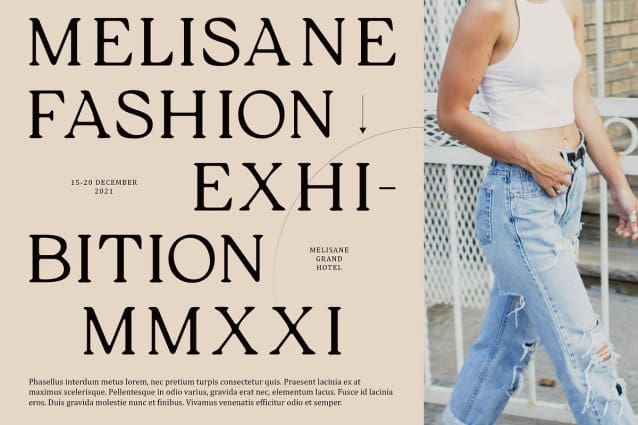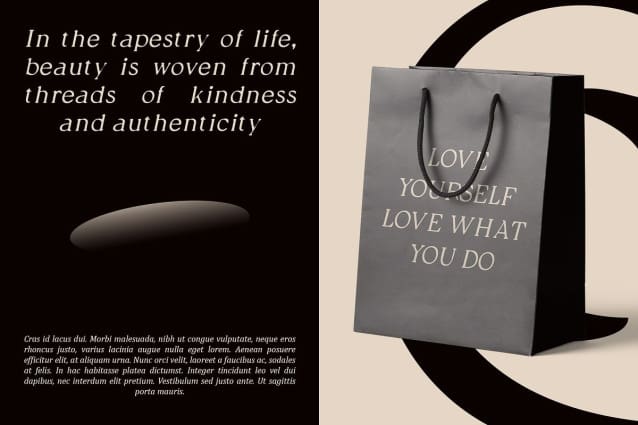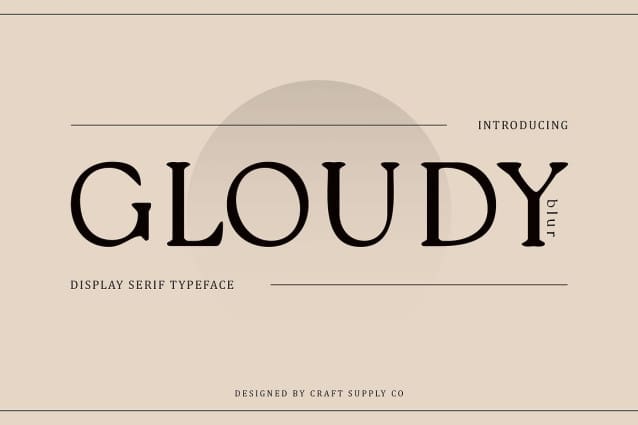
Gloudy Blur Font
Gloudy Blur Font is a modern serif font that marries classic sophistication with a contemporary touch. Its elegant serif design contributes a refined and formal appearance, making it perfect for projects that require a touch of traditional class.
Soft, Smooth, and Shimmering The blur effect applied to Gloudy Blur adds a unique dimension to the font, creating a soft and smooth appearance that subtly enhances its visual depth. This effect introduces a slightly shimmering or hazy quality, adding a layer of luxury and modernity.
Ideal for Elegant and Stylish Designs Gloudy Blur excels in conveying a stylish and sophisticated image, making it an ideal choice for invitations, luxury branding, and promotional materials. Its blend of modern elegance and classic refinement ensures that your text stands out with a classy, contemporary flair.